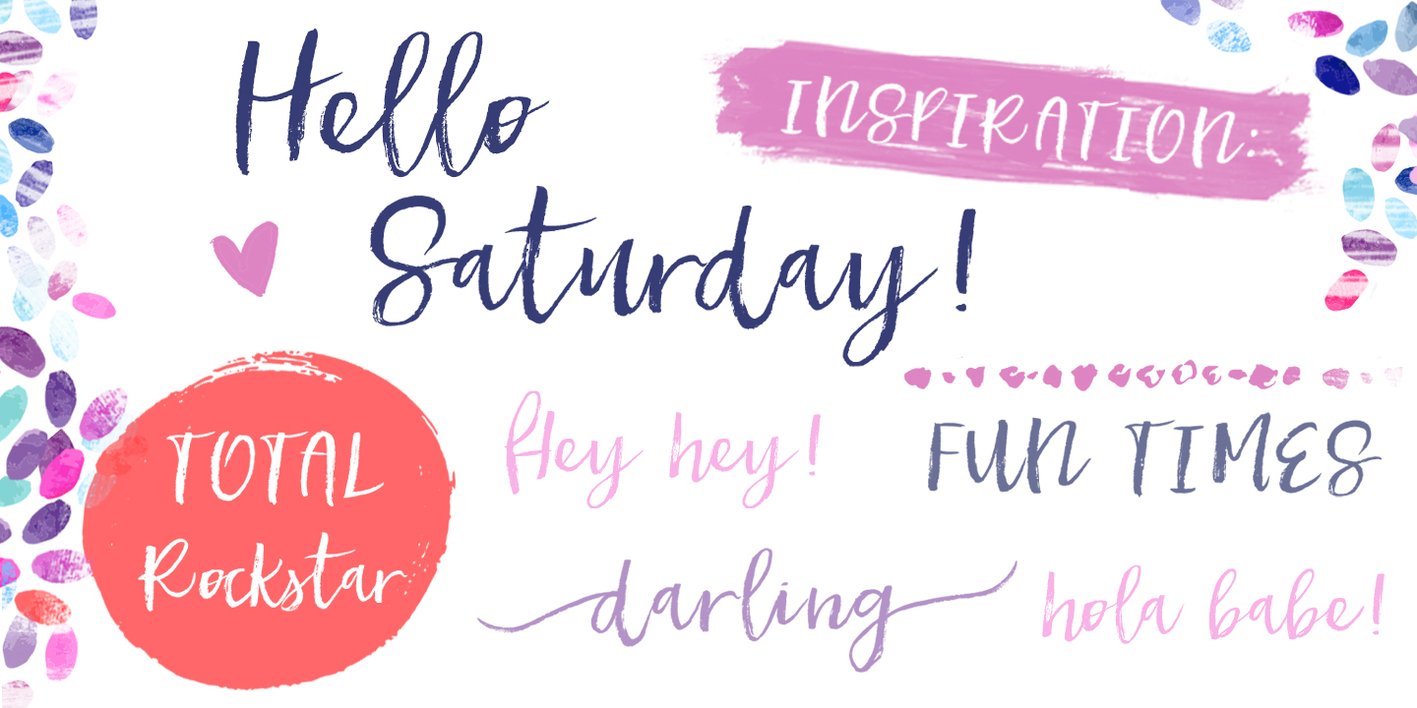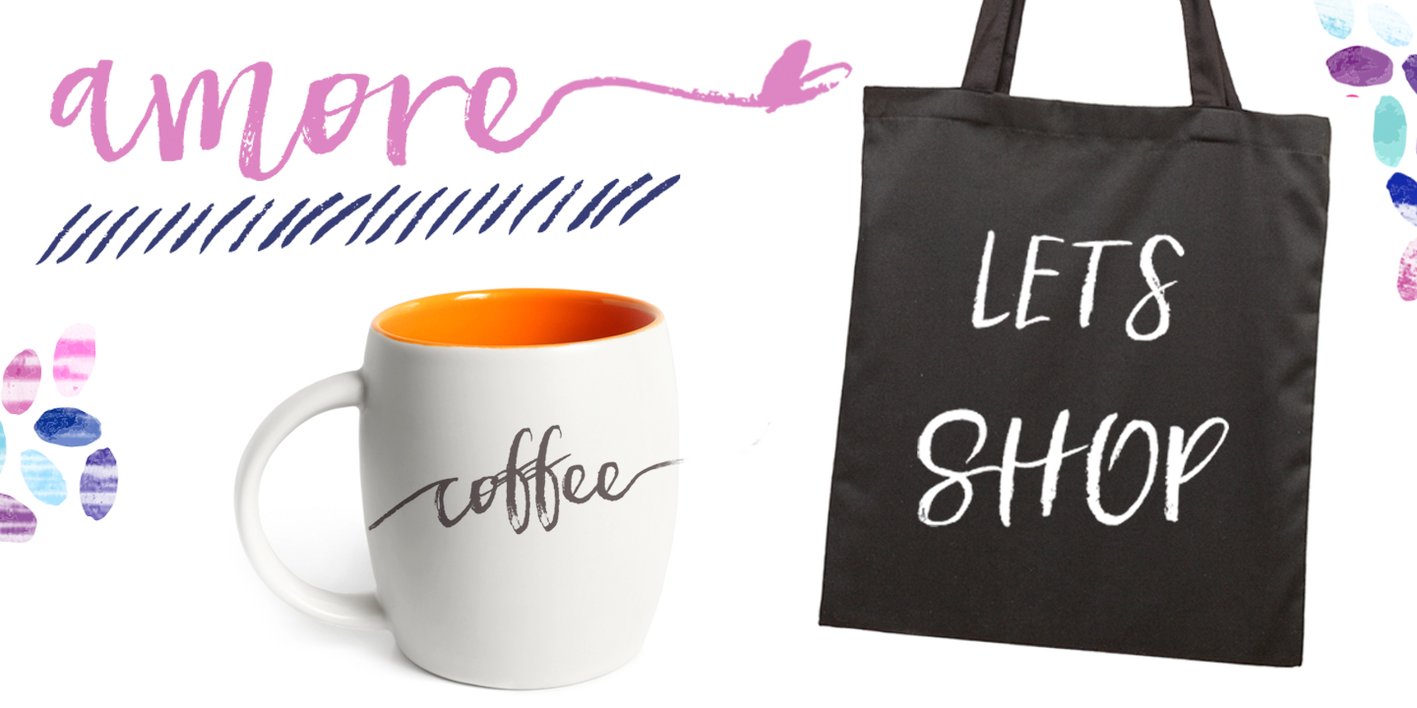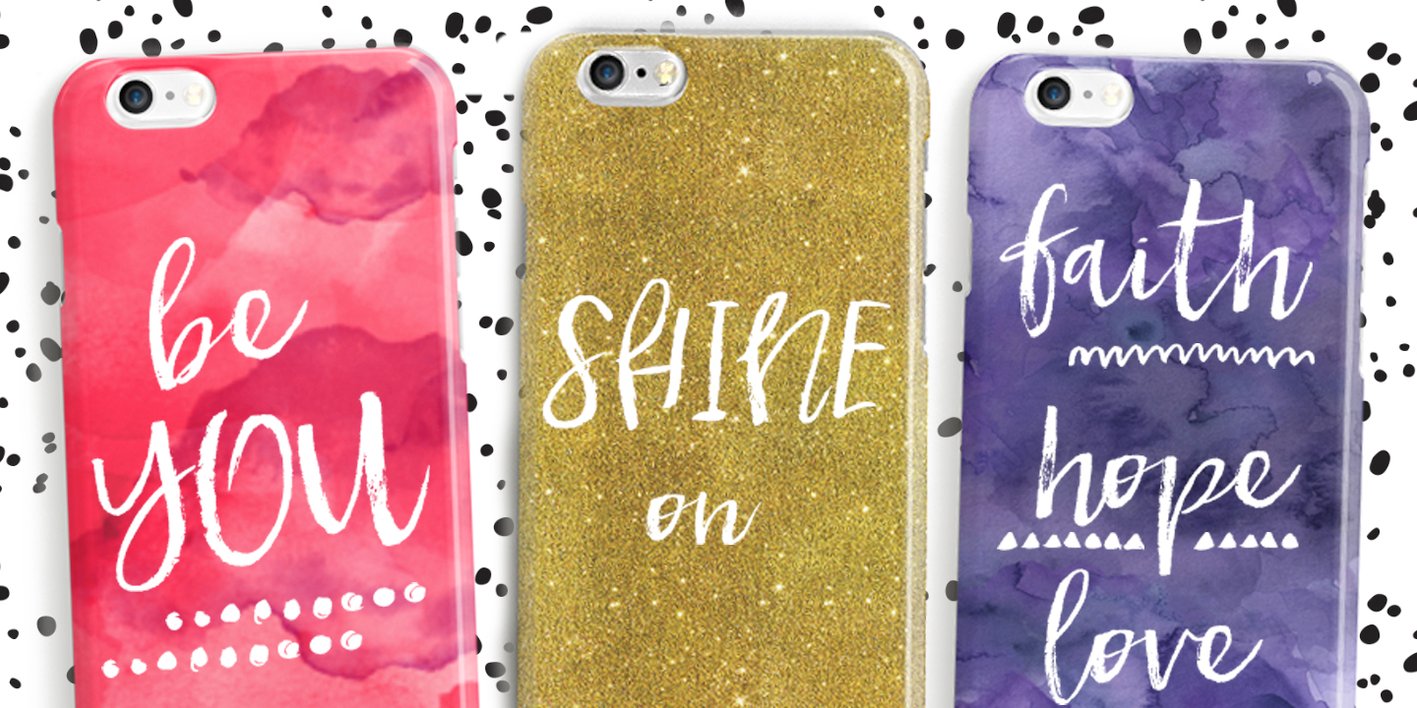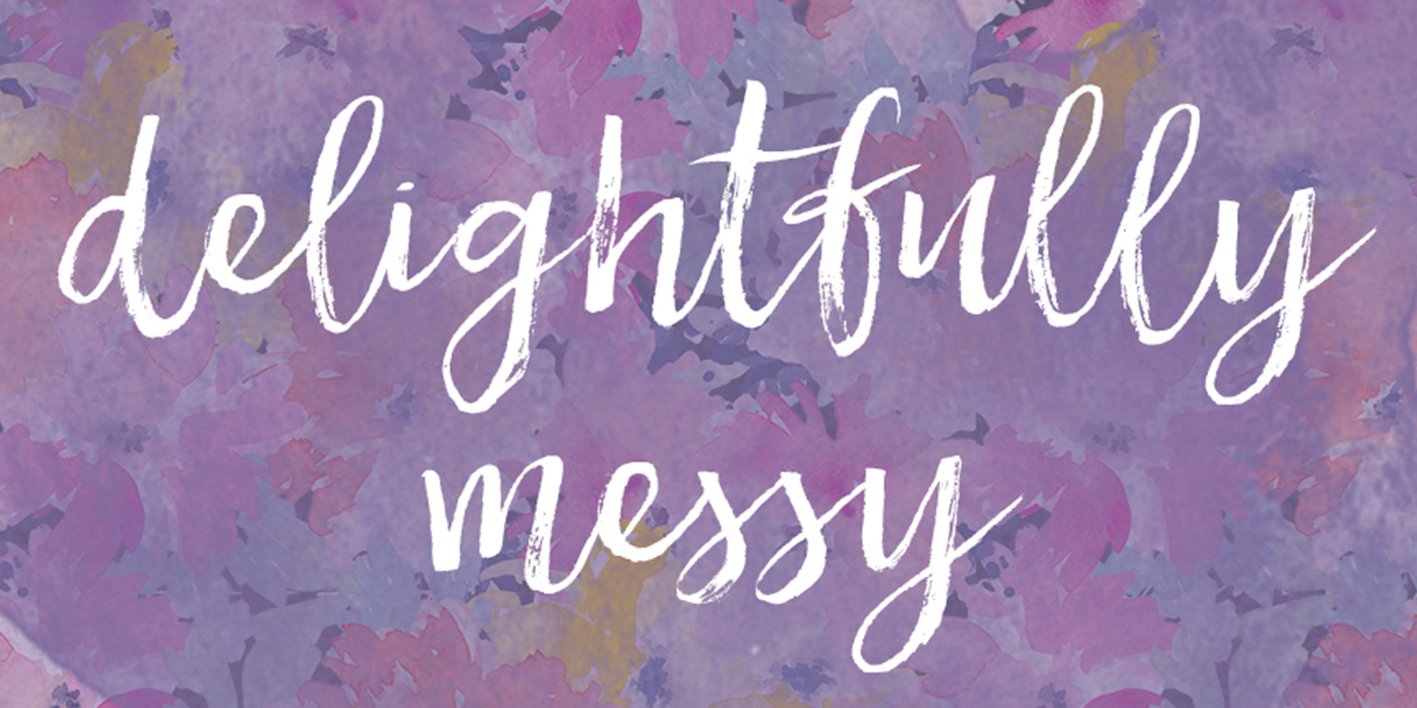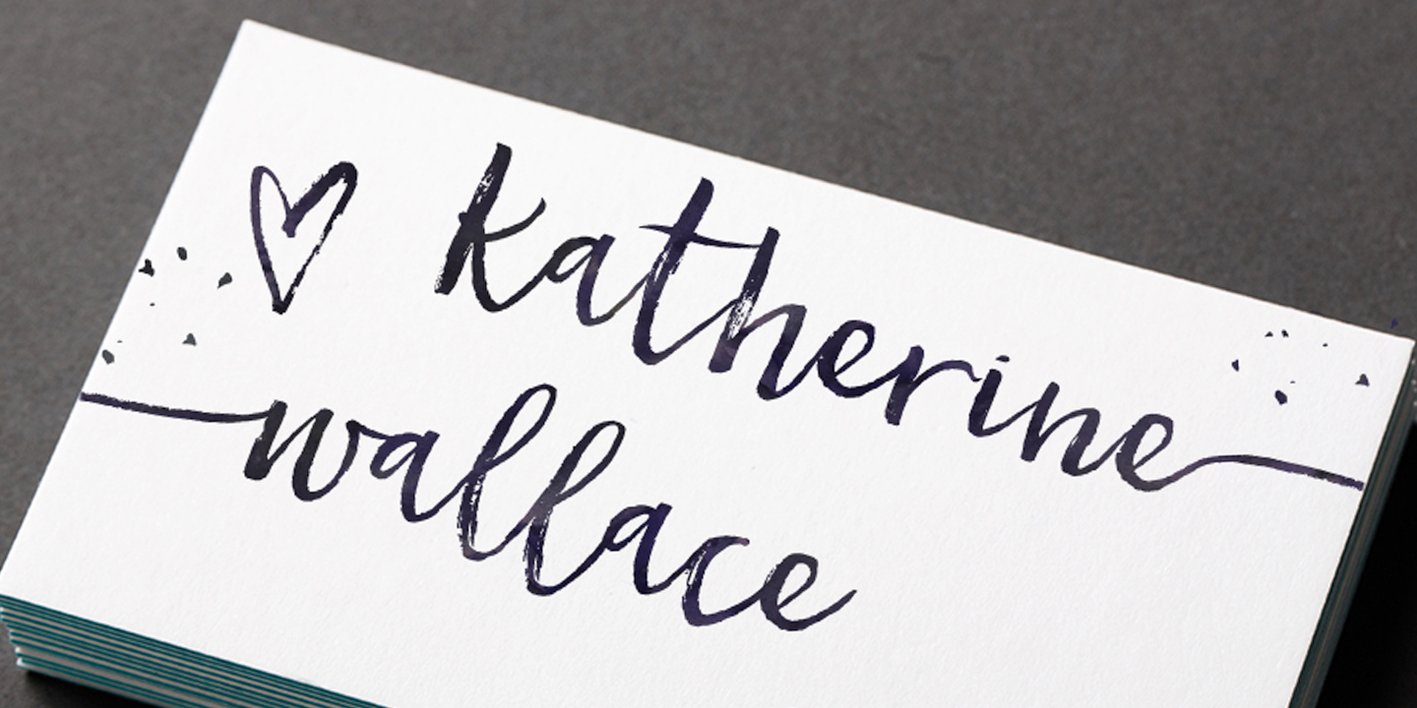
Colville Font
Colville Font is perfect for rural heritage branding, countryside tourism marketing, small-town community materials, colonial-inspired designs, historical village documentation, heritage site signage, rural municipality communications, countryside bed & breakfast promotions, agricultural heritage projects, traditional craft exhibitions, rural lifestyle magazines, and charming projects that require authentic, village-inspired typography with rural heritage and small-town sophistication.
What makes Colville Font so exciting is its authentic rural heritage and small-town sophistication that embodies the timeless charm and community spirit of traditional village life and countryside culture. This typeface features warm, welcoming letterforms with heritage characteristics and rural proportions that evoke the comfort of small-town main streets, the authenticity of community gatherings, and the kind of genuine hospitality that defines close-knit rural communities. The font's village character and heritage appeal make it perfect for rural tourism brands and heritage organizations that want to communicate authentic tradition, community values, and the kind of small-town charm that creates lasting connections with visitors seeking genuine countryside experiences.
Colville Font typically comes in multiple weights and styles including Light, Regular, Medium, and Bold variations. Many versions also include heritage ornaments, rural decorative elements, and countryside symbols that enhance the font's village functionality and provide designers with comprehensive tools for creating authentic, heritage-inspired typography compositions that celebrate rural community spirit and small-town traditions.
Embrace rural heritage with the authentic charm of Colville Font Free Download. This heritage-focused typeface brings together village tradition with contemporary design functionality, making it an essential tool for rural tourism professionals and heritage organizations that need to create memorable, authentically charming communications that resonate with visitors seeking genuine countryside experiences and traditional community values. The font's village character ensures your rural projects will convey authentic heritage and small-town hospitality.
Whether you're designing rural tourism materials, heritage site communications, or countryside community branding, Colville Font delivers exceptional rural authenticity and village charm that connects with audiences who appreciate traditional values and authentic small-town experiences. Its warm, welcoming appearance works beautifully with heritage color palettes and countryside imagery, creating designs that feel both authentically rural and professionally welcoming for heritage tourism applications.
The thoughtfully crafted letterforms of Colville Font demonstrate deep understanding of rural typography and heritage design principles. Each character has been designed to honor the authentic charm of village life while ensuring excellent readability for contemporary heritage and tourism applications, making it particularly valuable for rural communications where typography must convey both community authenticity and the welcoming spirit that makes small towns truly special destinations.